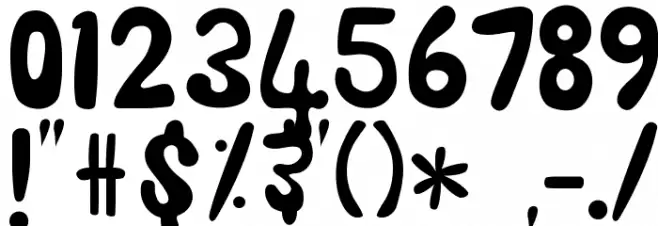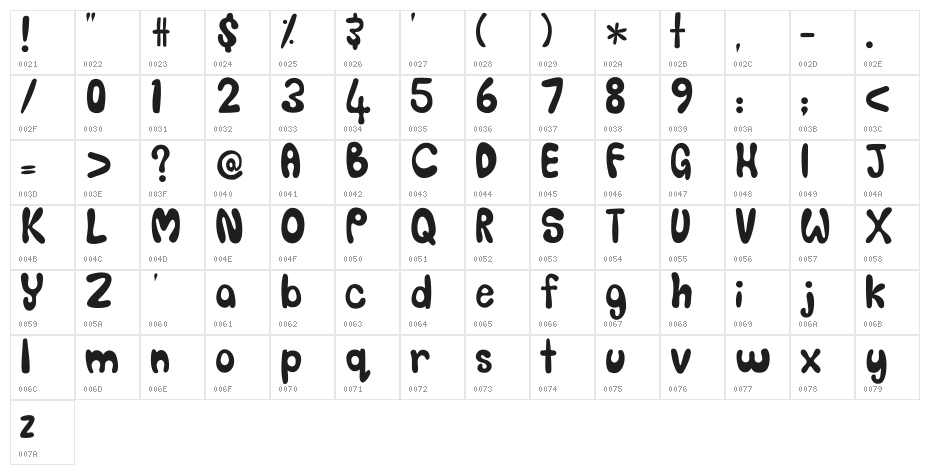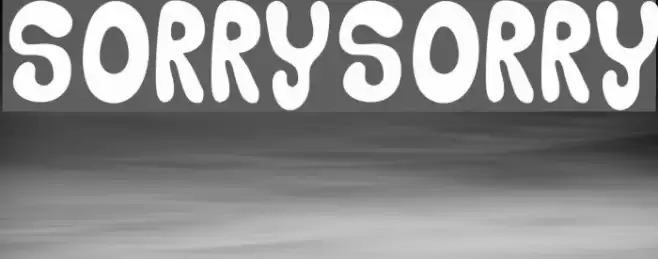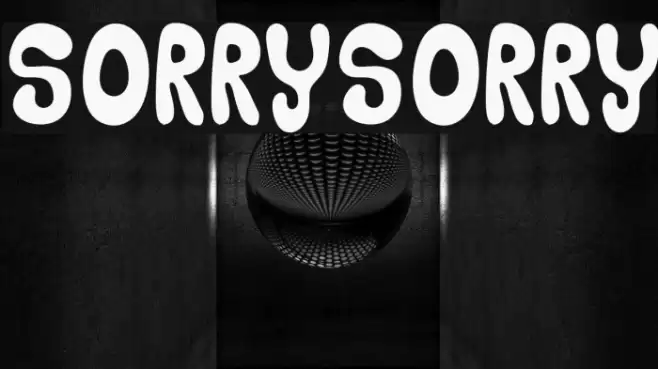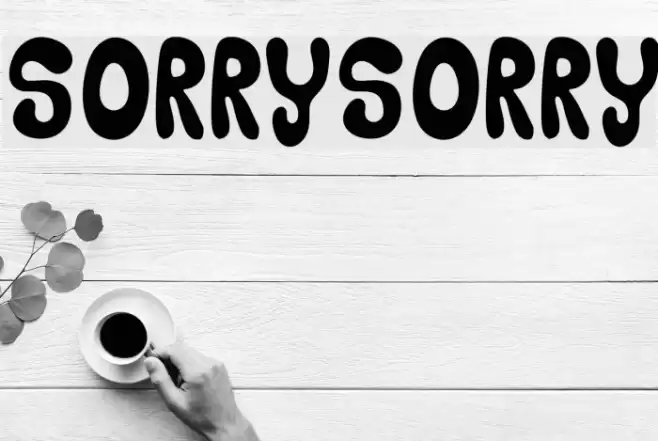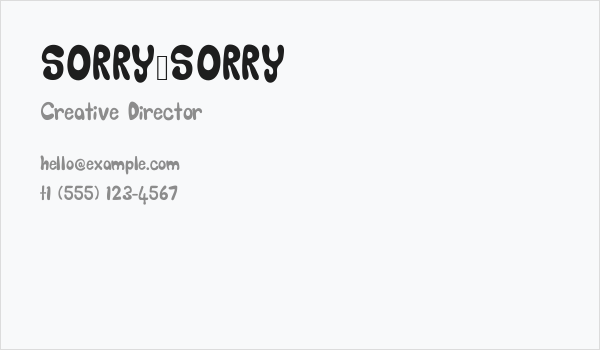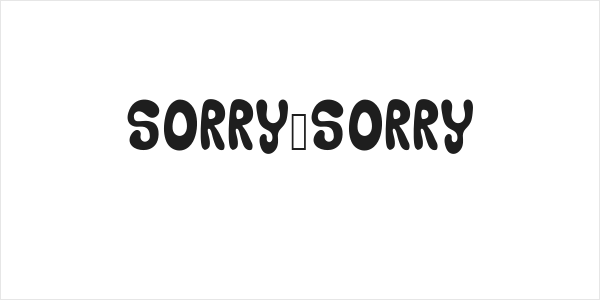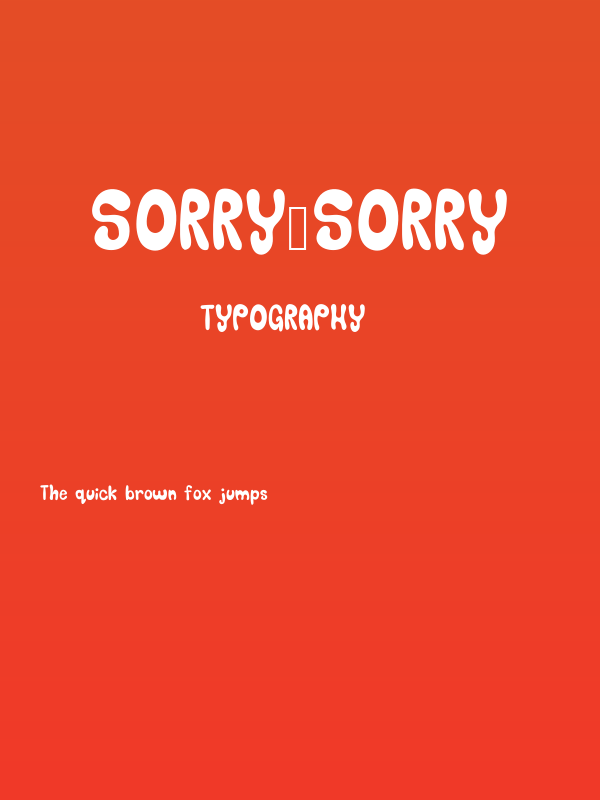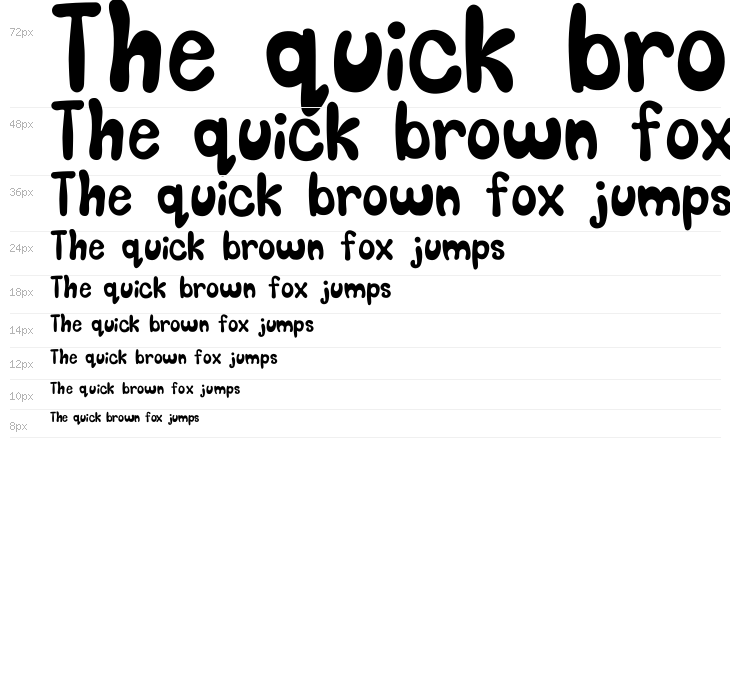
SORRY_SORRY Font
SORRY_SORRY Description
This playful and bold font features rounded, bubbly characters that convey a sense of fun and whimsy. The uppercase and lowercase letters are consistent in their rounded forms, with a slightly irregular baseline that adds to the casual, hand-drawn aesthetic. The numbers and special characters maintain this playful style, making the font suitable for creative and informal applications. The thick strokes and lack of sharp edges give it a friendly and approachable appearance, ideal for designs that aim to be engaging and lively.
| Overall Style | Playful, Casual |
| Proposed Projects | Ideal for children's books, playful branding, party invitations, and casual social media graphics. |